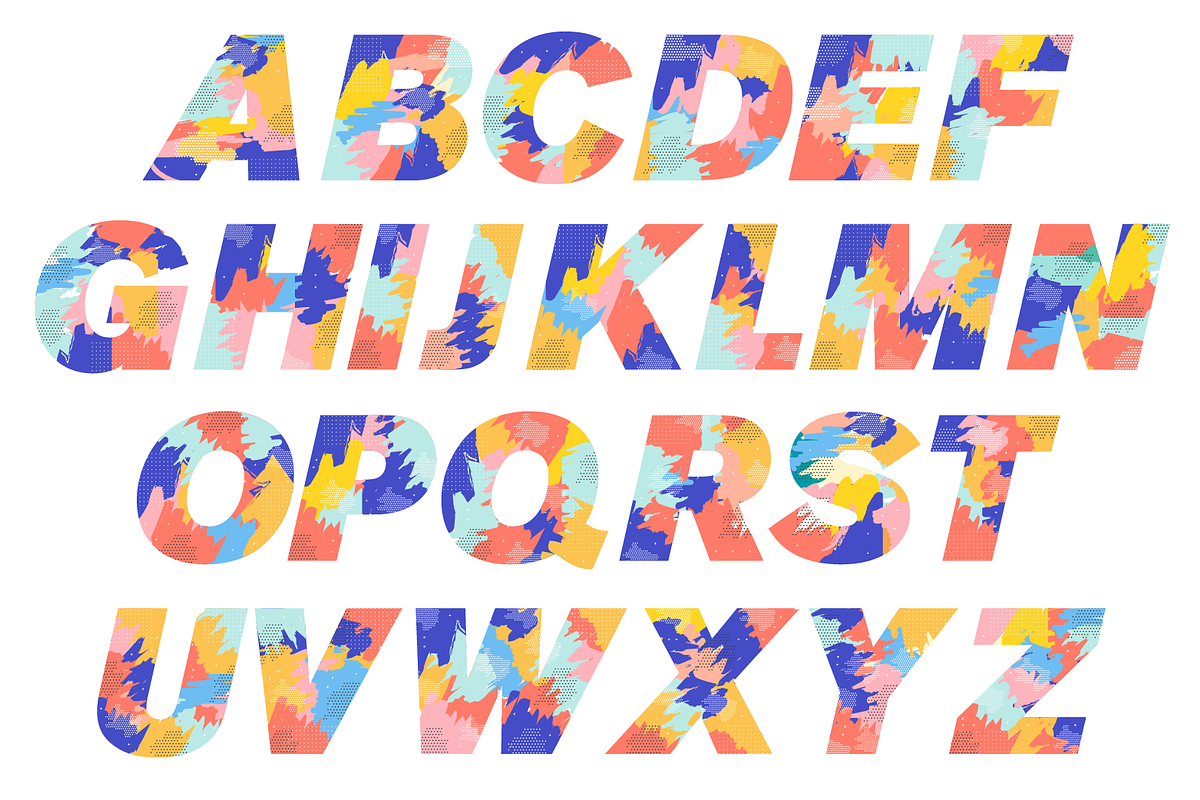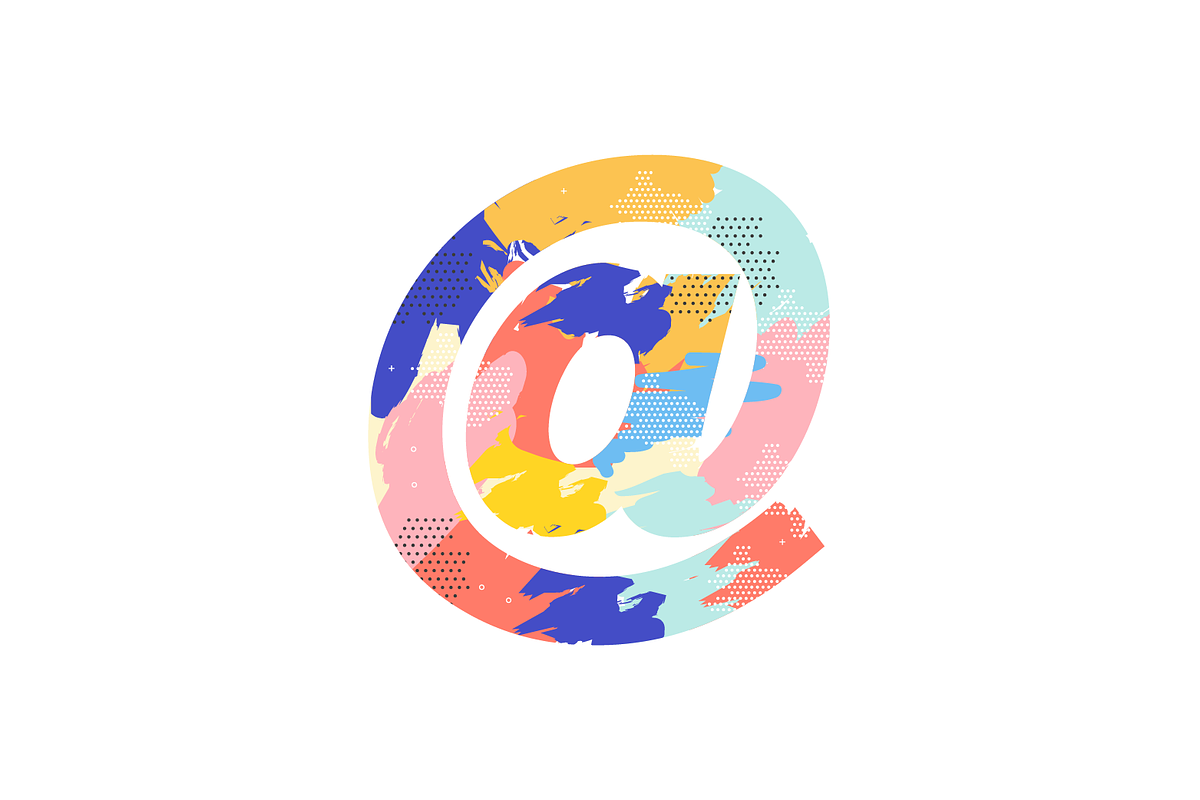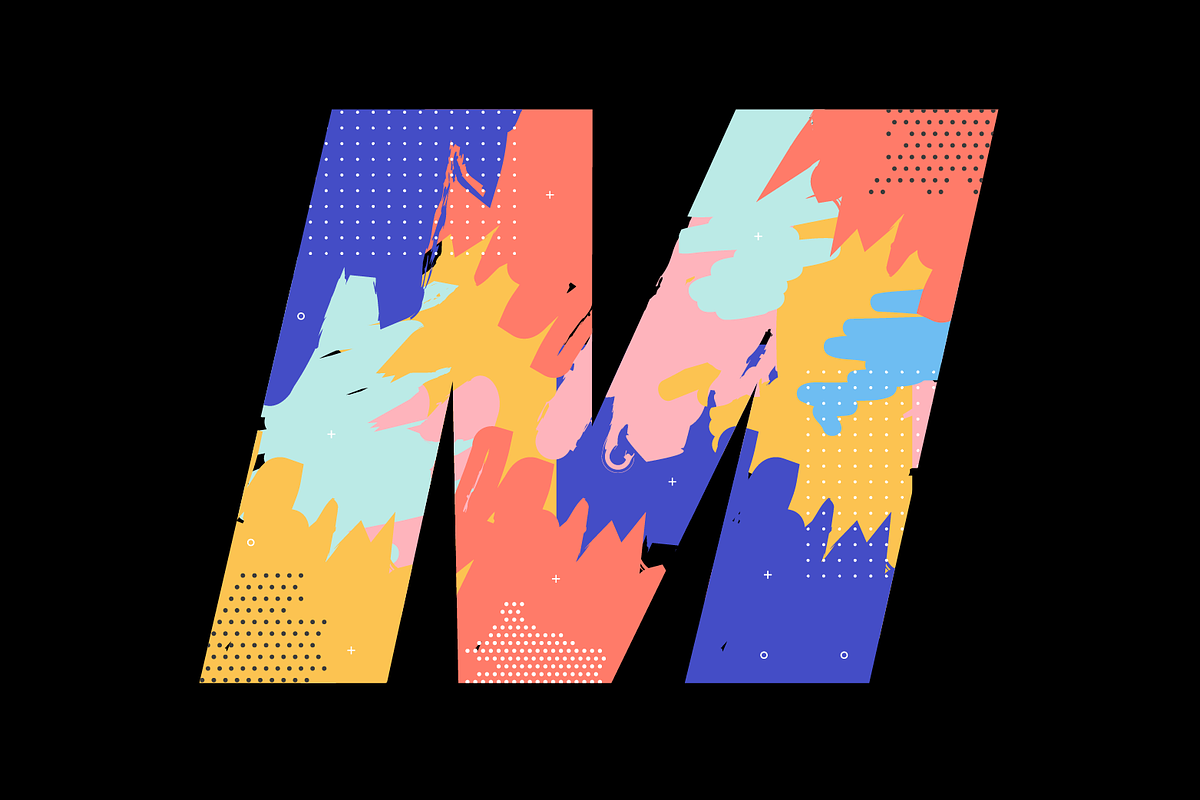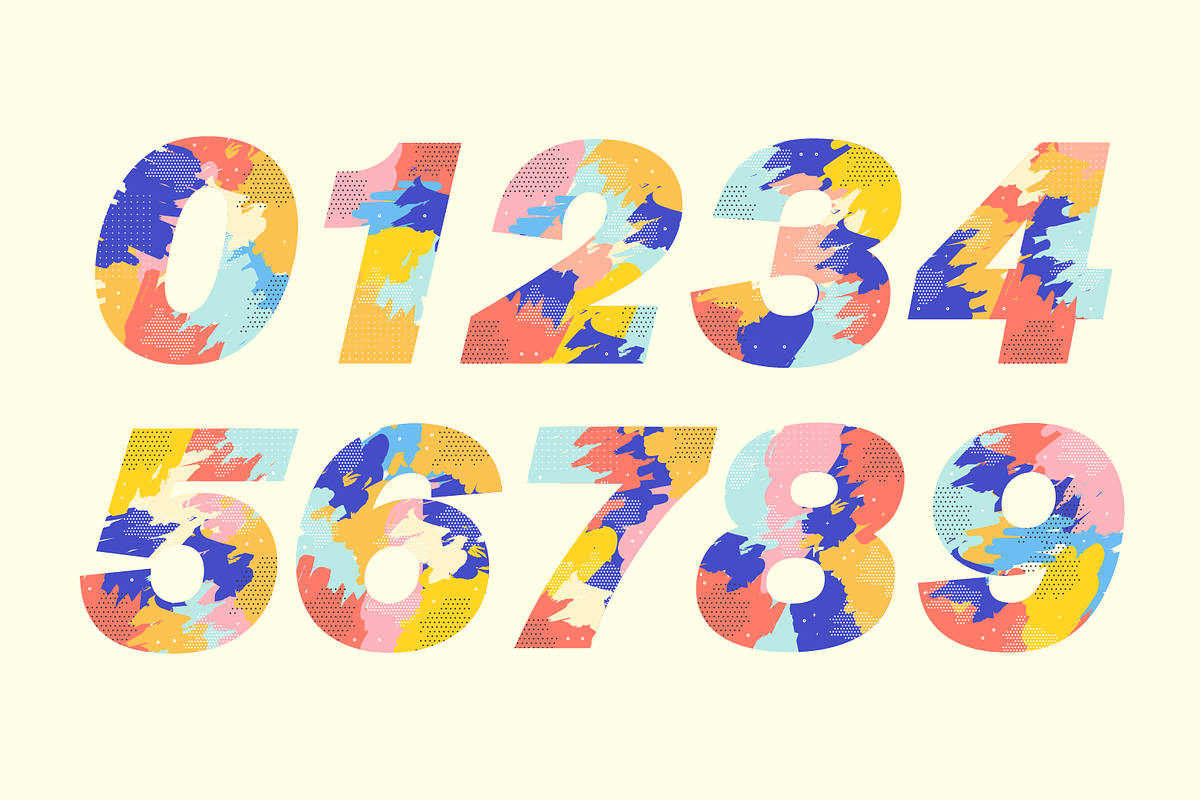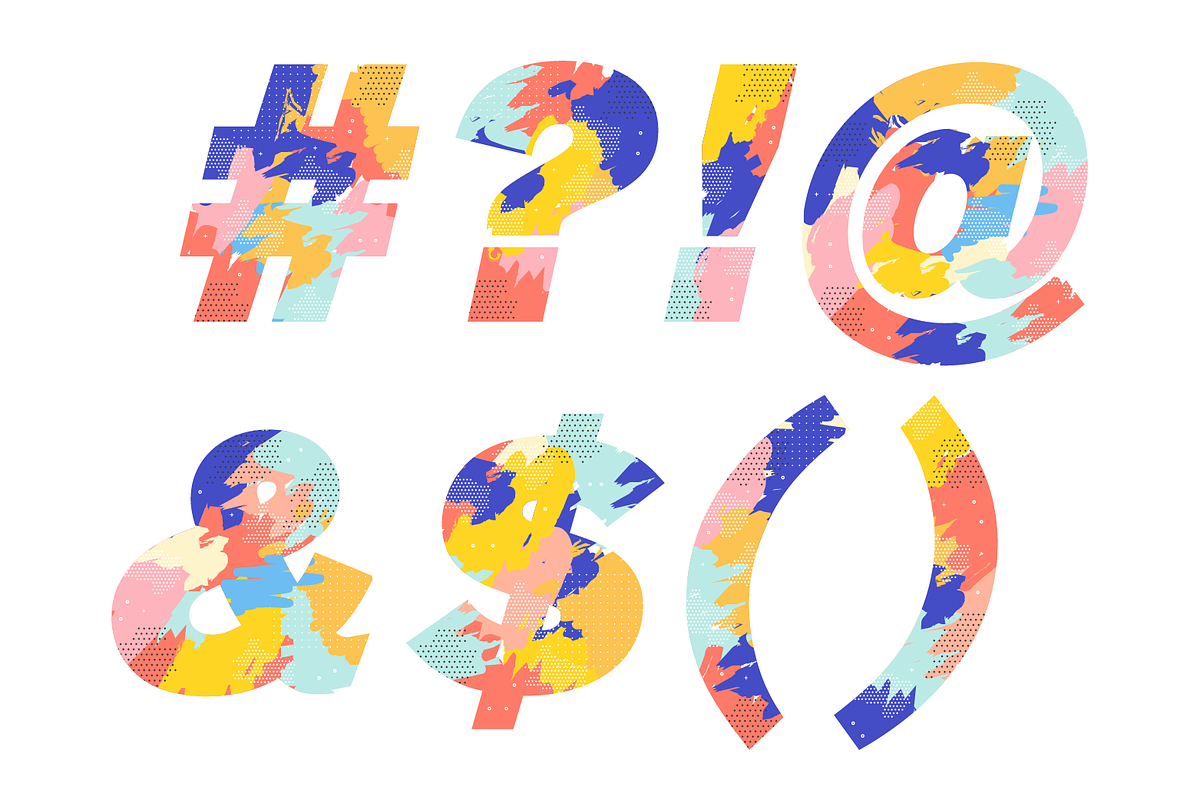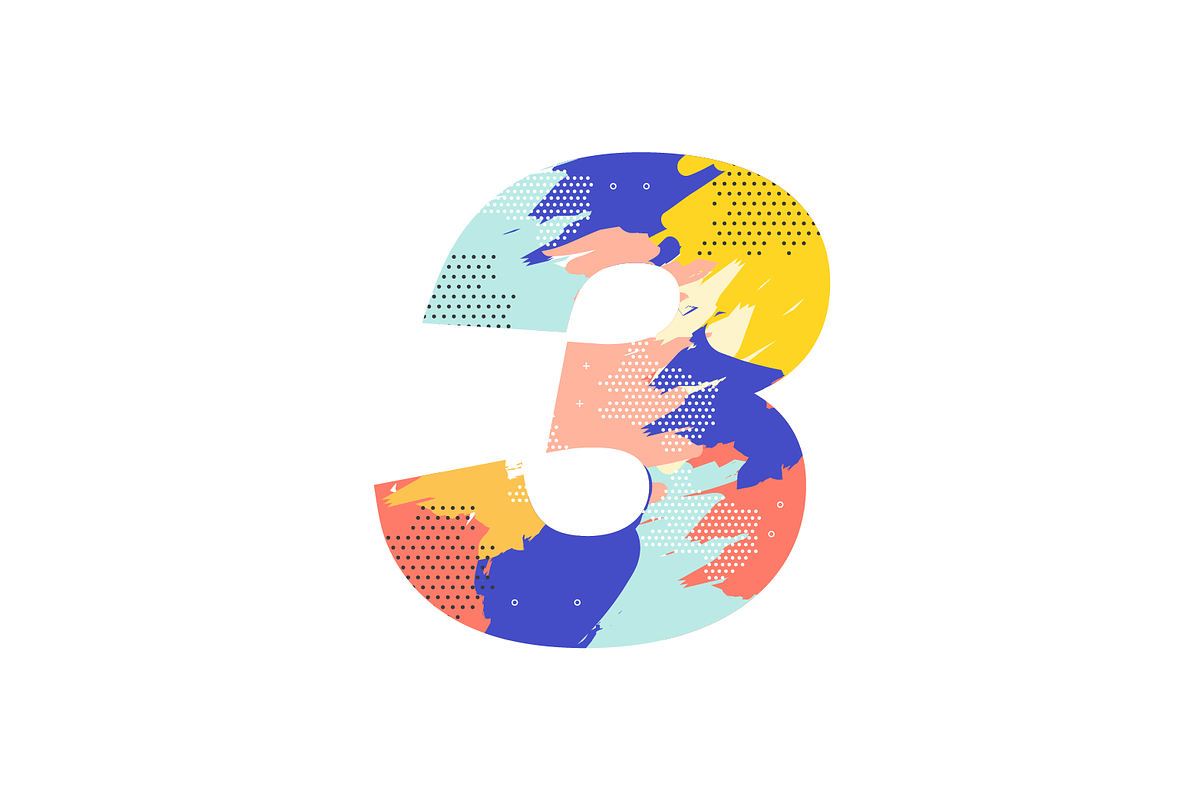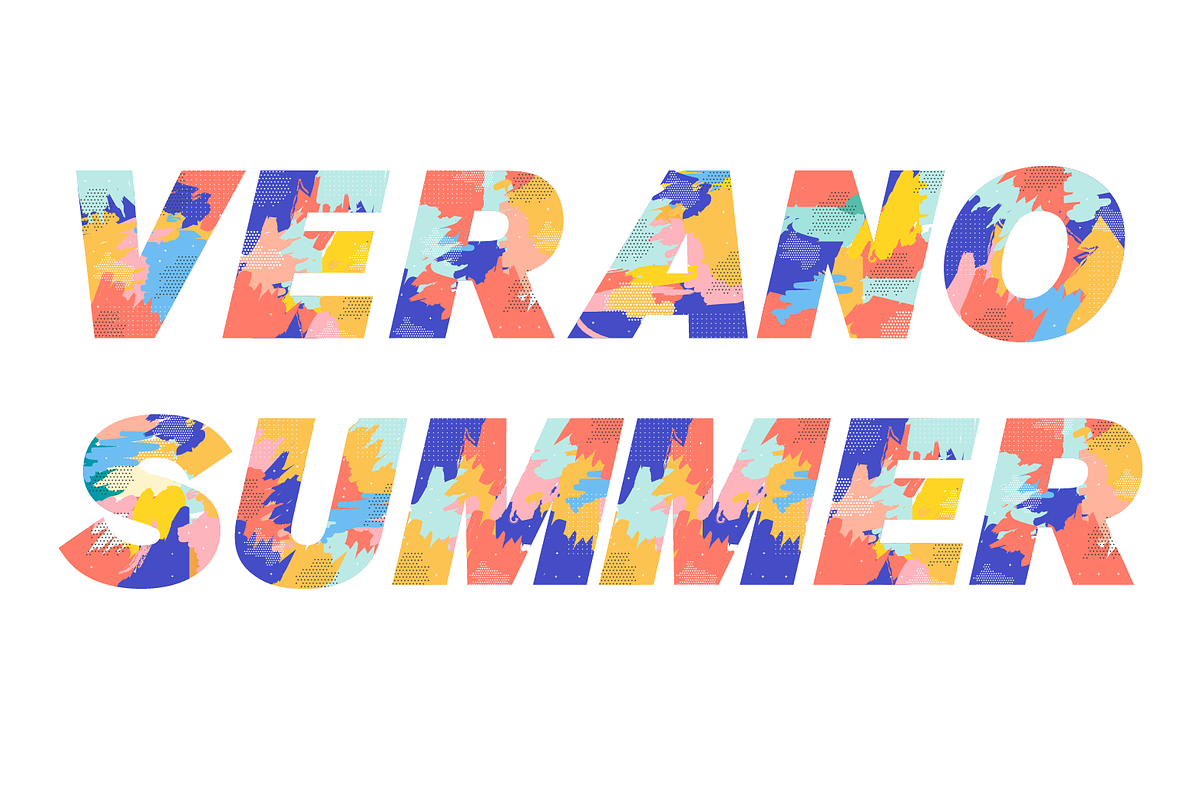
Iris SVG Font
Beautiful and colorful typography to be used in all types of design, fresh and fun.
Iris SVG Font by yaisalinas fits naturally into Branding, posters, packaging, typography.